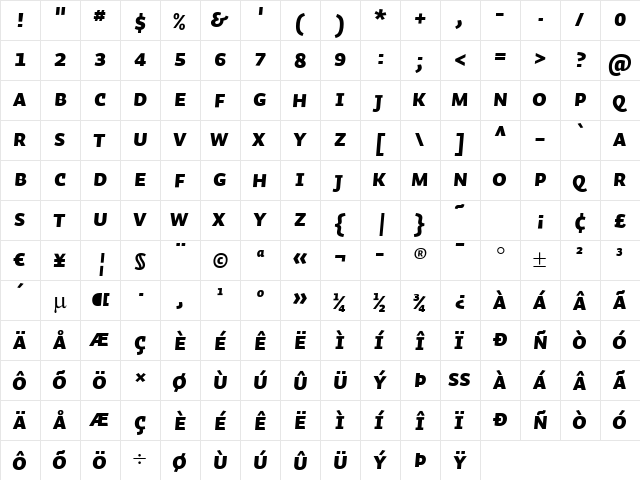
Auto 1 Black Italic SmCp
| Style | Black Italic SmCp |
Design Context for Auto 1 Typeface
Auto 1 is a composed and adaptable typeface that performs quietly and consistently across a wide range of design contexts. The dynamic lean of this cut emphasises speed and emphasis in any layout.
Pro Tip: Try Auto 1 for annotation and caption copy alongside an upright companion — the contrast in angle creates a dynamic but ordered typographic system.